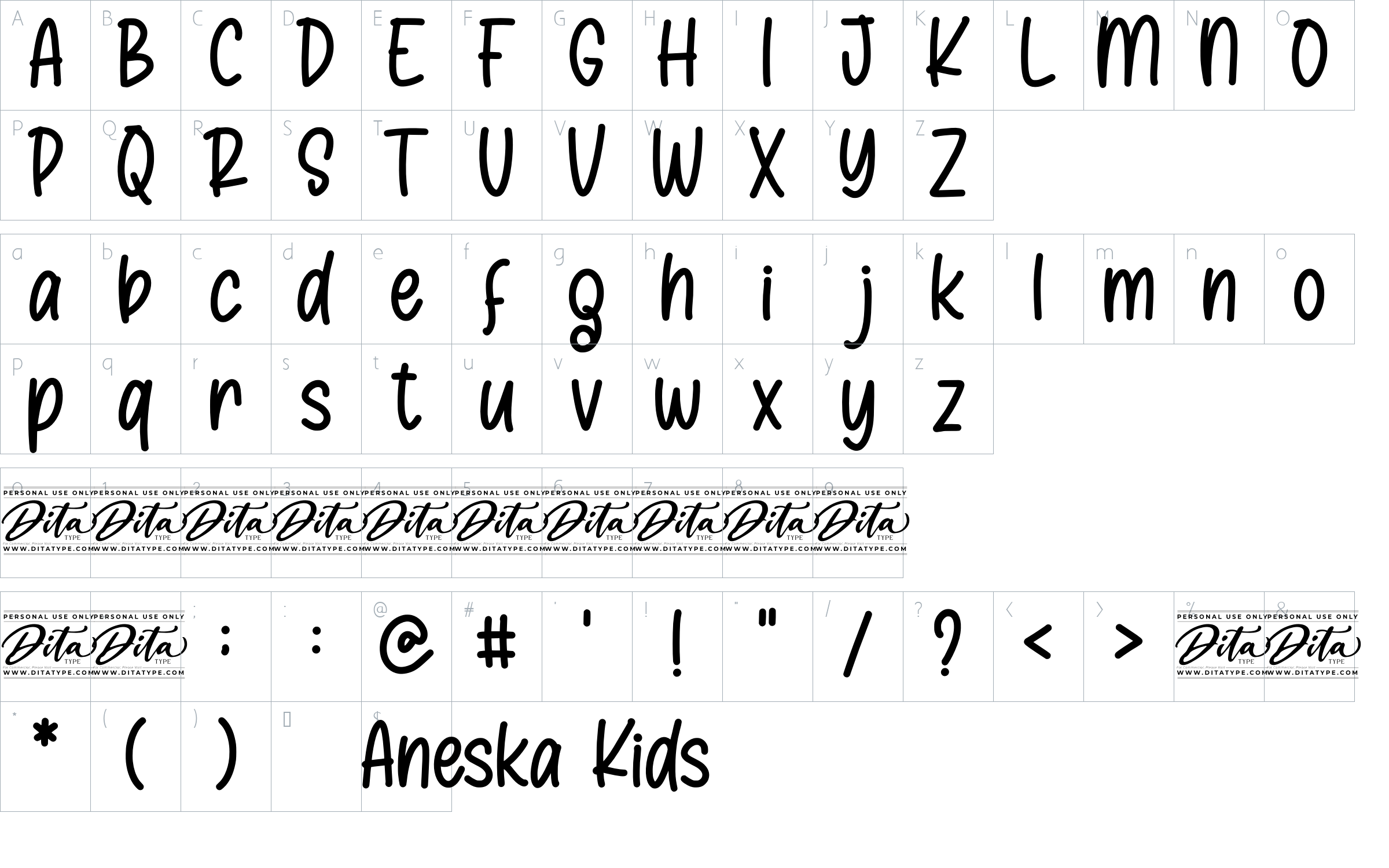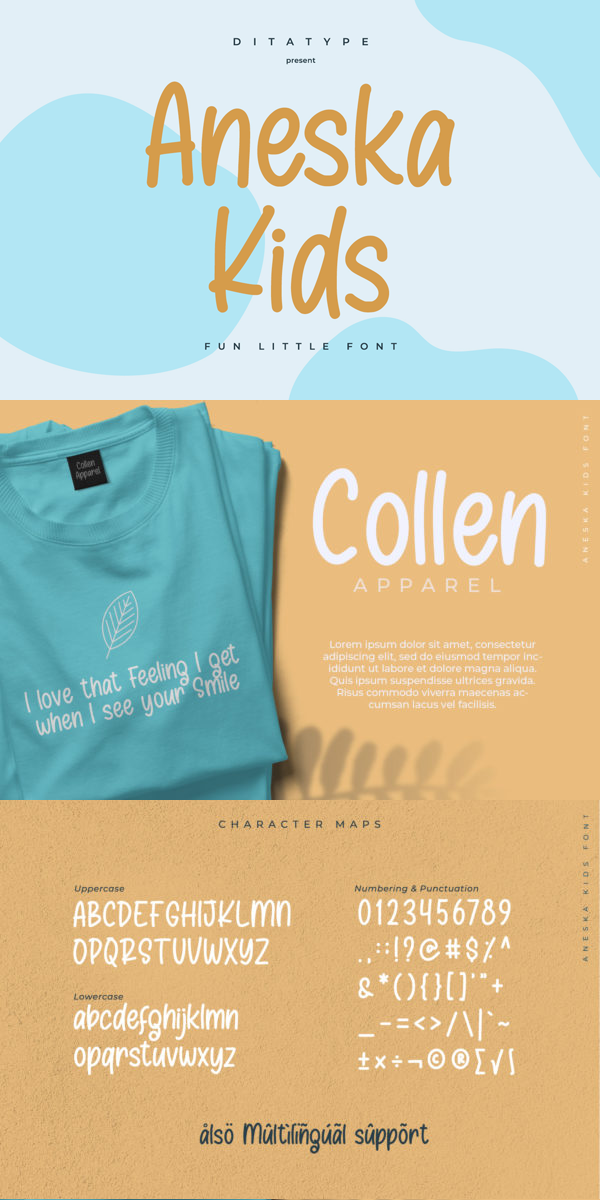
Aneska Kids Font
About Aneska Kids
Aneska Kids is a display font. Made with a playful style, it brings a fun and chic typeface. Chalk Brush is best used for card, branding, logotype, and quotes.